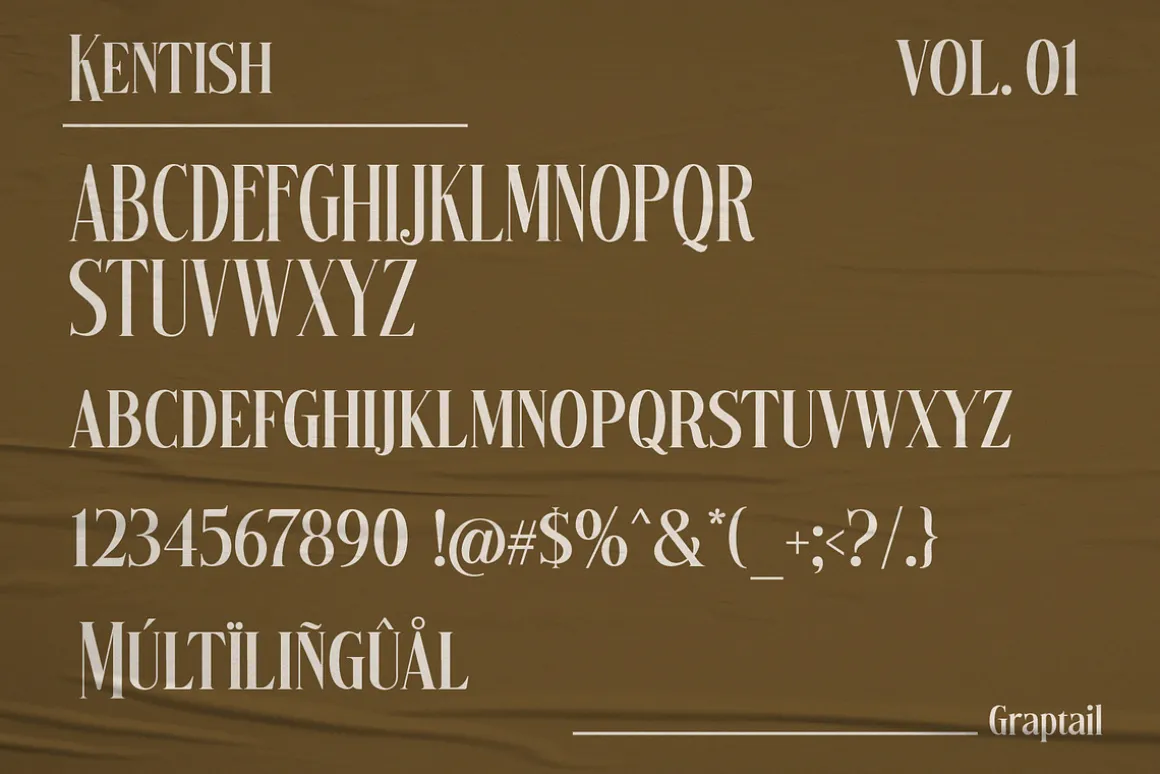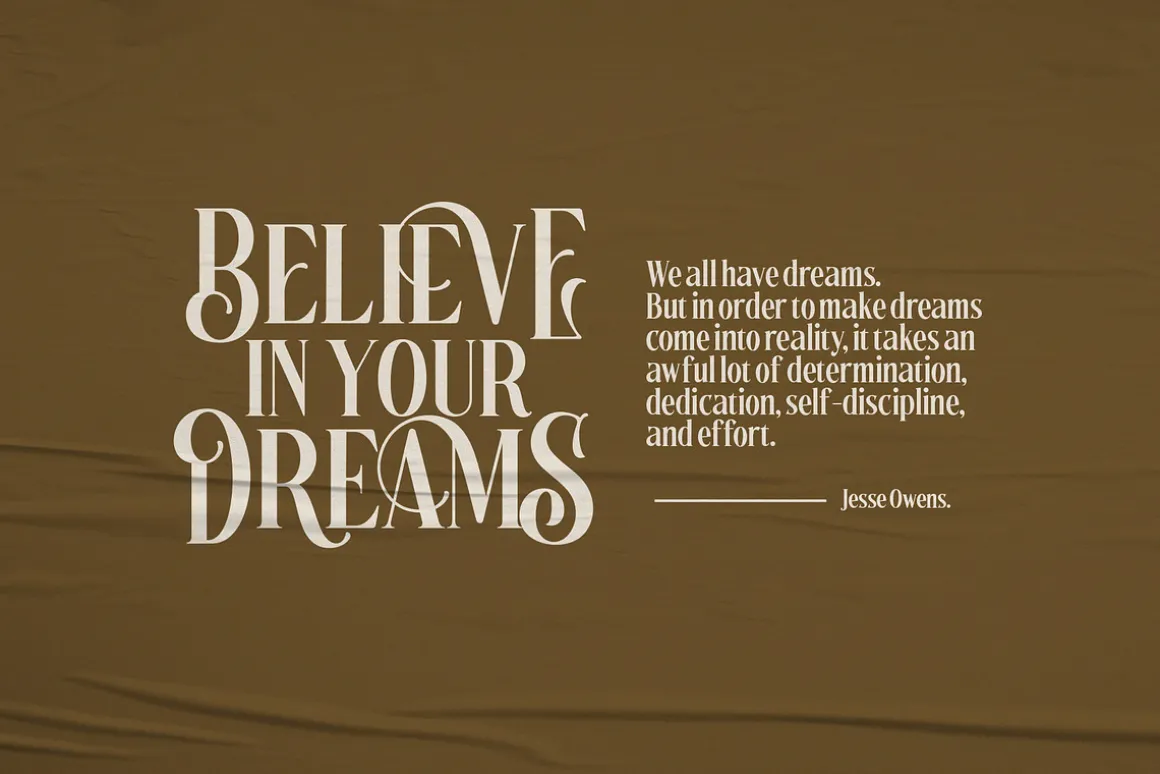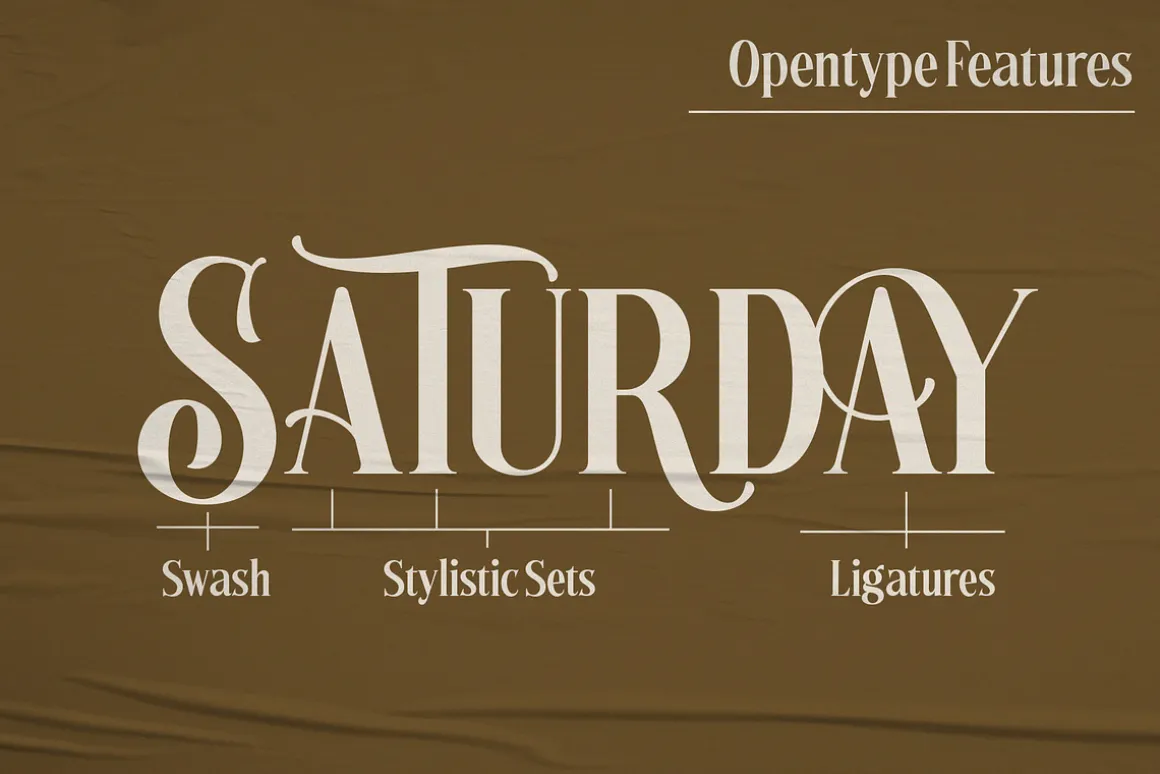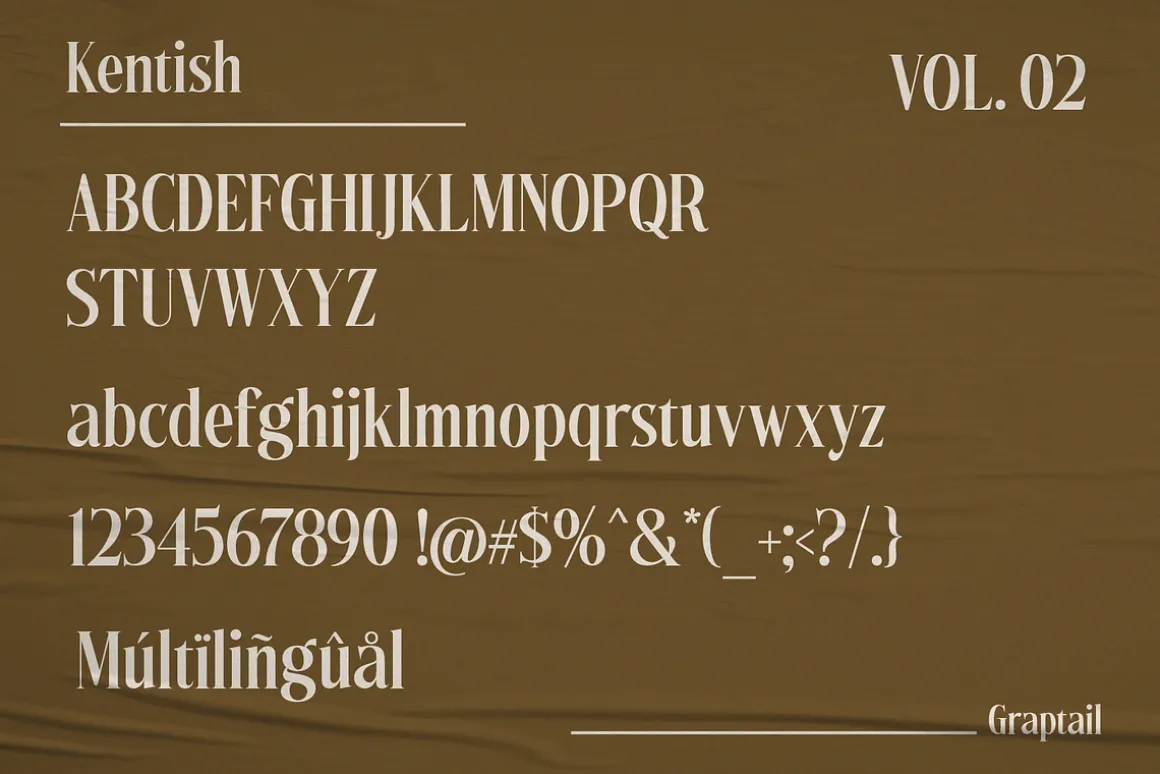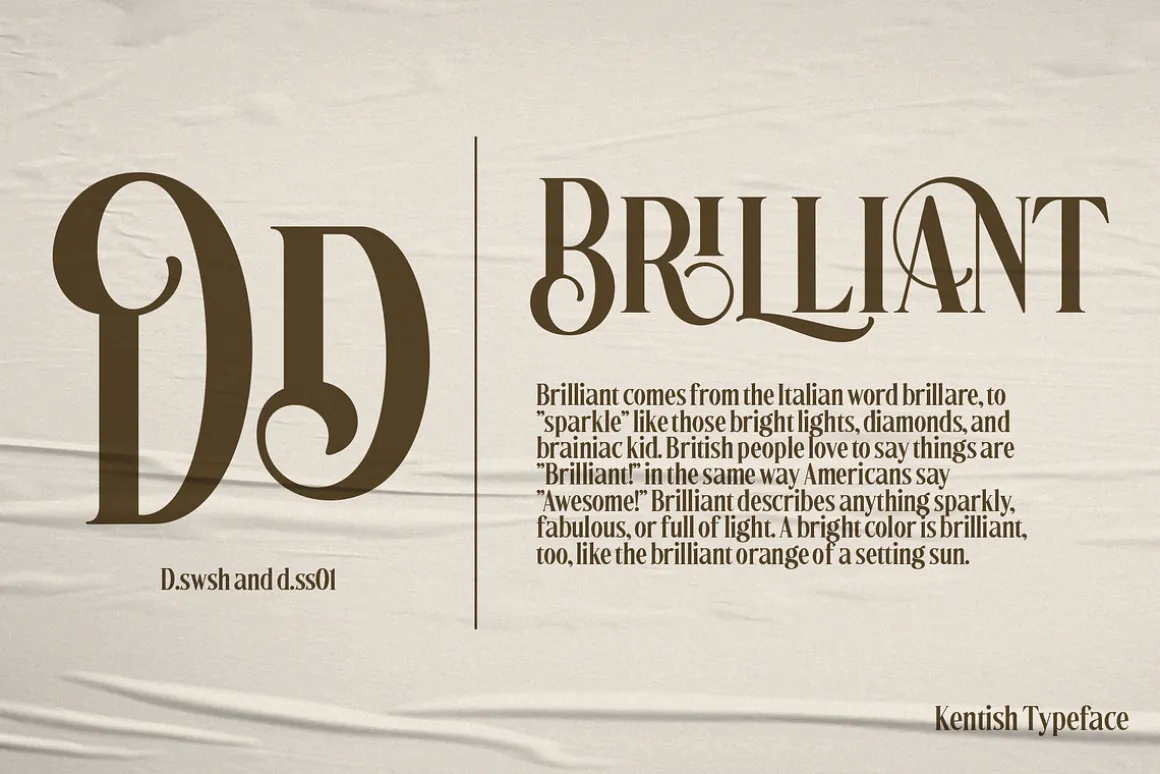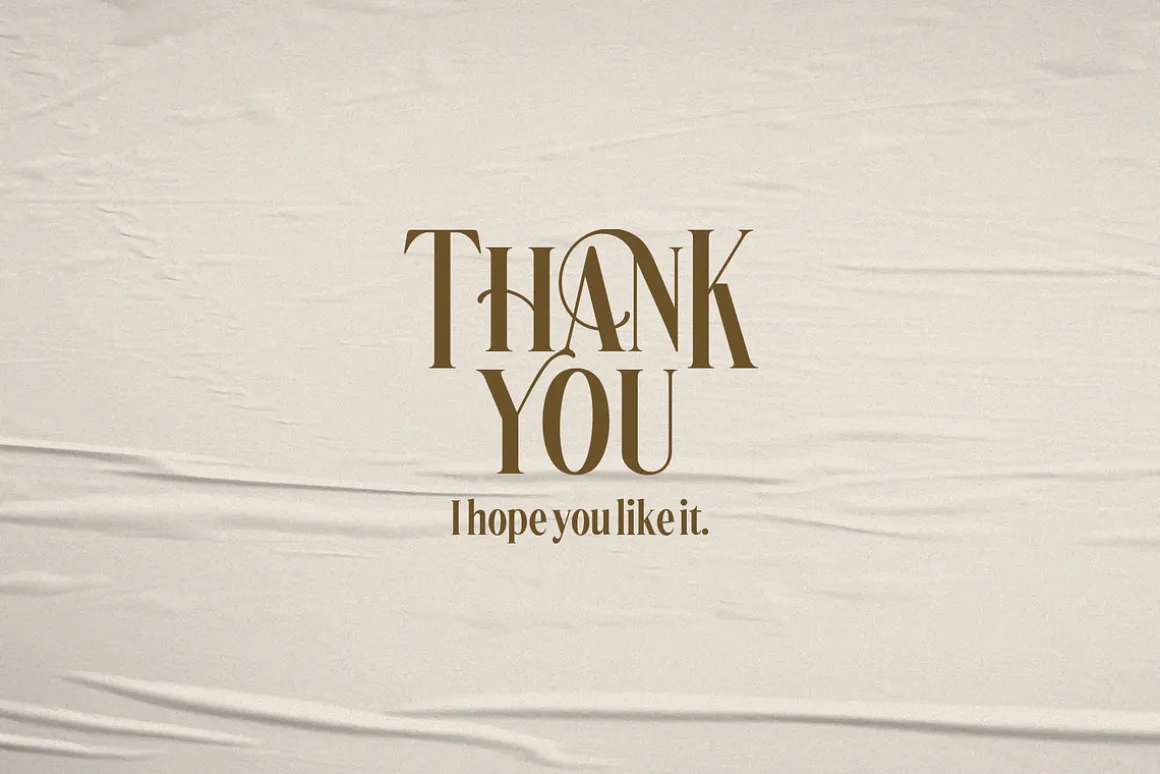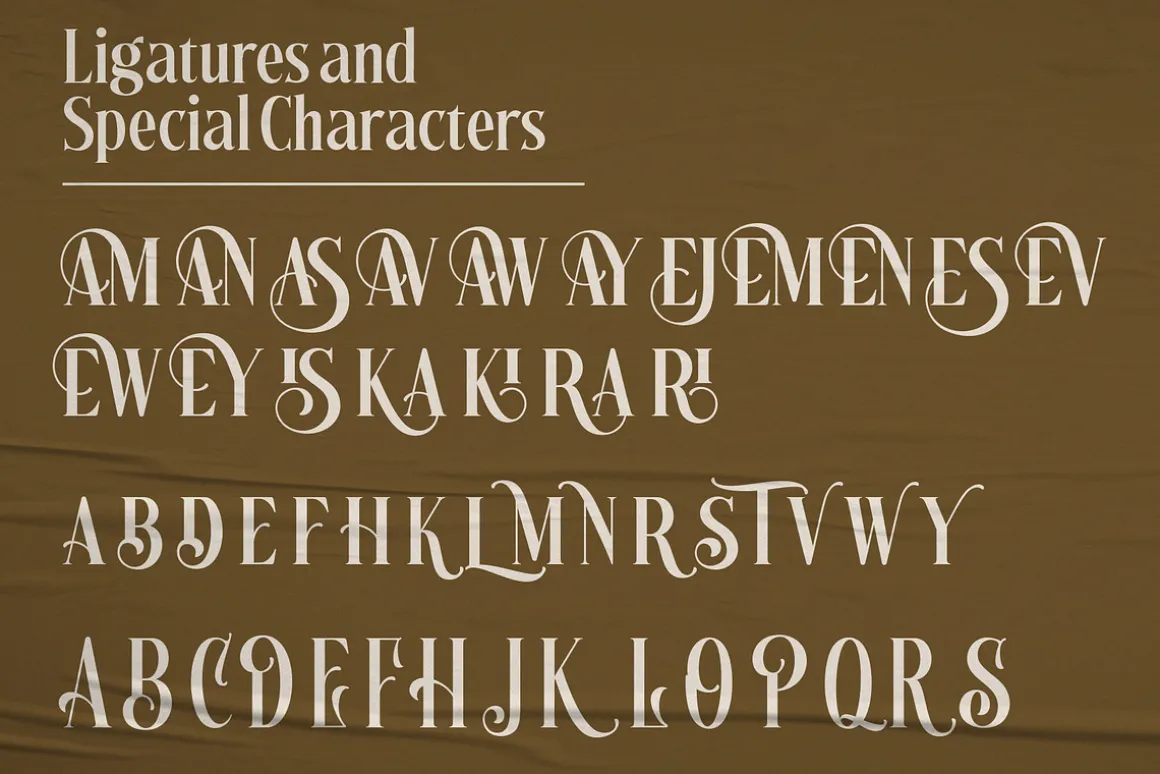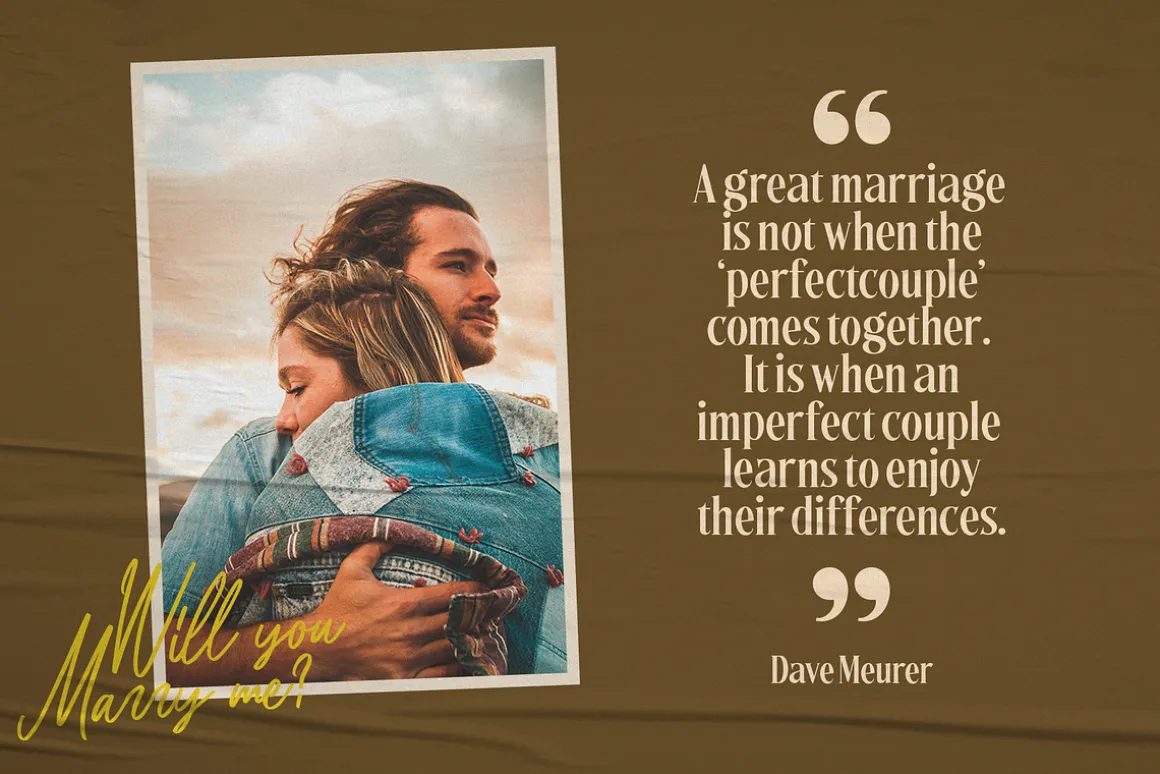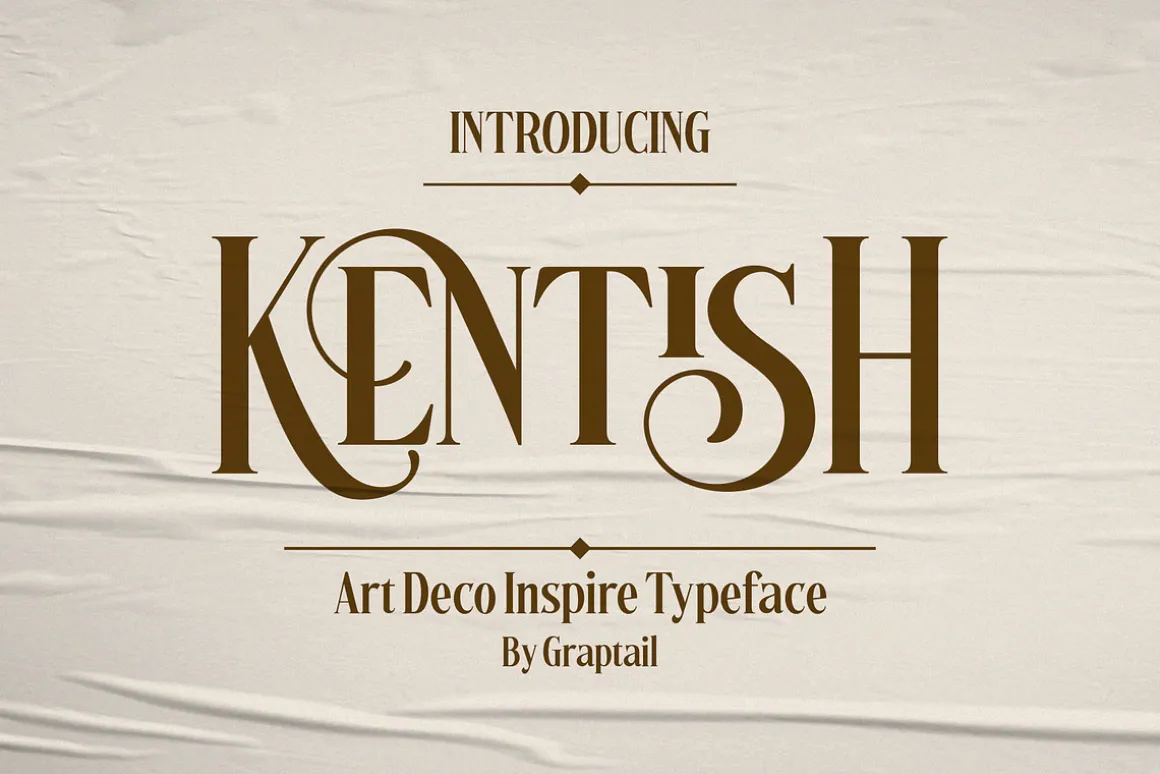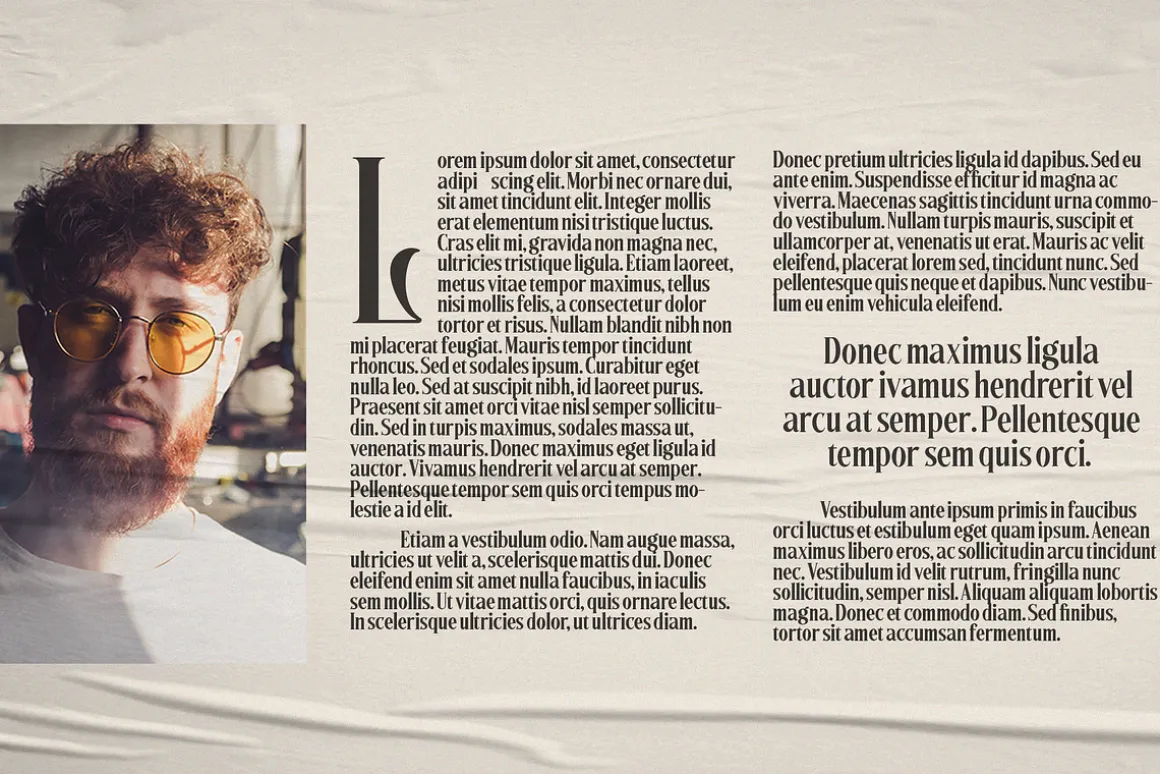
This majestic typeface adds a elegant twist to any design. Although the inspiration for this typeface comes from the Art Deco era, Kentish feels modern and contemporary. The large selection of stylistic alternations and ligatures makes this serif font extremely versatile. A passionate curve gives a touch of beauty to this font. Come up with two different shapes in terms of uppercase letters that aim to distinguish between title of the letter and the paragraph.Use Kentish for branding, magazine design, logo design, headlines, posters, packaging, cards or your wedding invitation.
OPENTYPE FEATURES
SwshLigaturesStylistic AlternatesStylistic Set